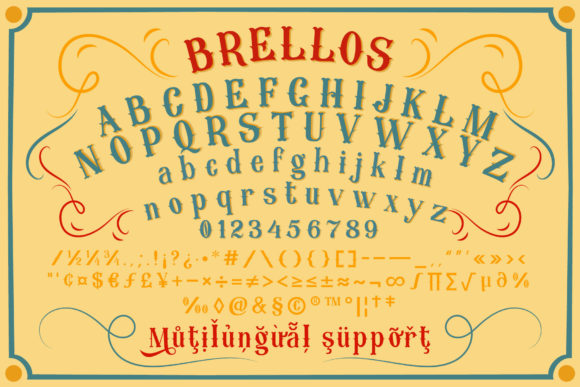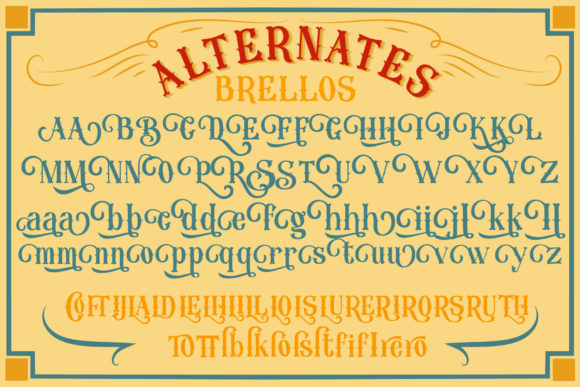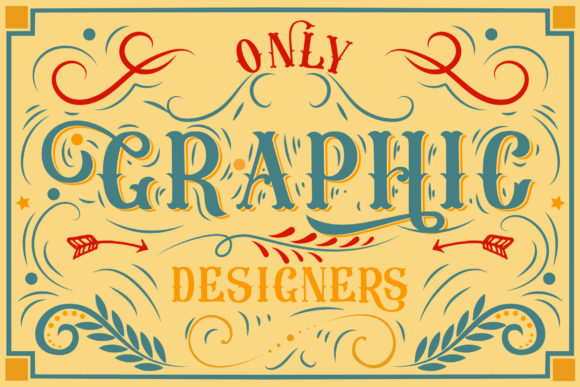
Brellos Font
Brellos is a fun blackletter font. This font is the ideal font for adding an adventurous and authentic feel to your next design idea!This font is PUA encoded which means you can access all of the glyphs and swashes with ease!